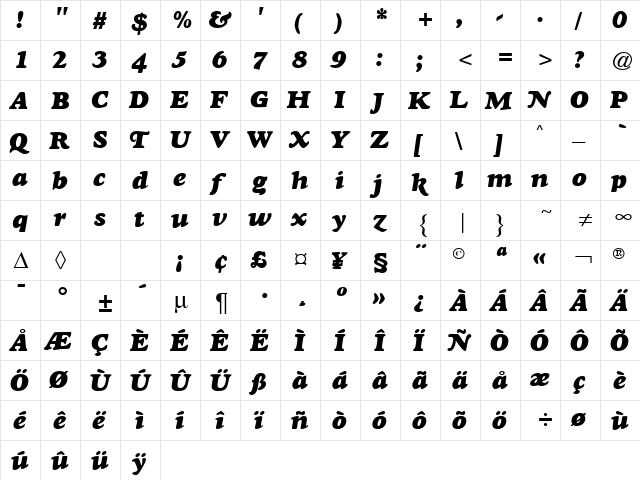
GoudyHeavyface RegularItalic
Design Context for GoudyHeavyface Typeface
GoudyHeavyface offers clean, dependable letterforms without strong stylistic allegiance, making it a practical choice for designers who need flexibility. Its italic angle brings a sense of urgency and motion to the letterforms.
Pro Tip: Try GoudyHeavyface for annotation and caption copy alongside an upright companion — the contrast in angle creates a dynamic but ordered typographic system.